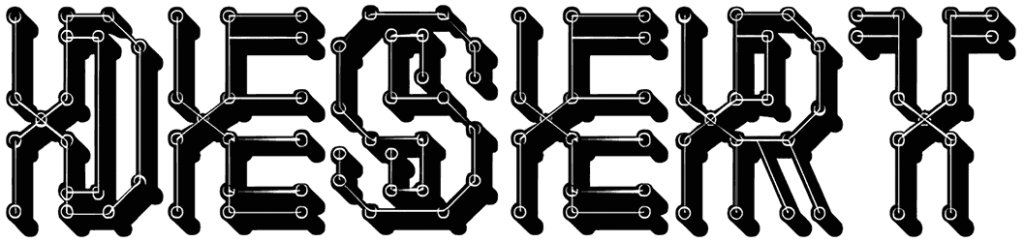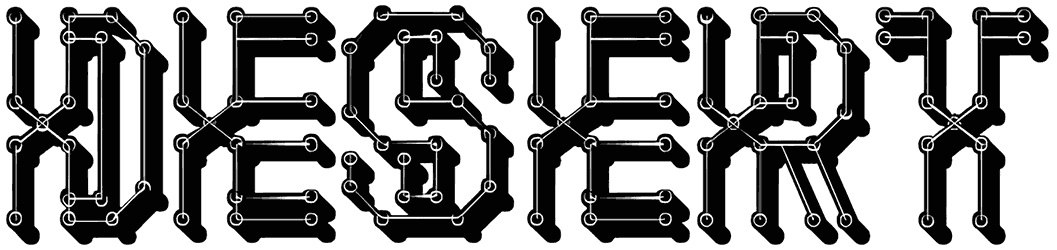
Desert Font
Desert is an industrial font with a retro-futuristic feel and a unique metallic design! It delivers techno futuristic vibes, with its mysterious characters that are creative. This font reminds you of aliens or vintage-style sci-fi movies, by utilizing it you will have one powerful typography.
The letterforms include A to Z capitalized letters that can be challenging to read, while it leaves out lower case alphabets, numbers, and punctuations. Desert fits well in movies, book titles, games, posters, and logos.